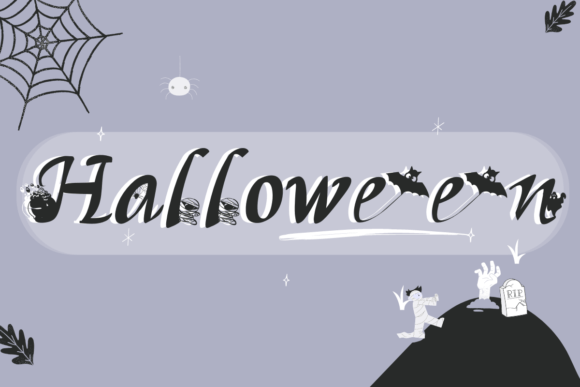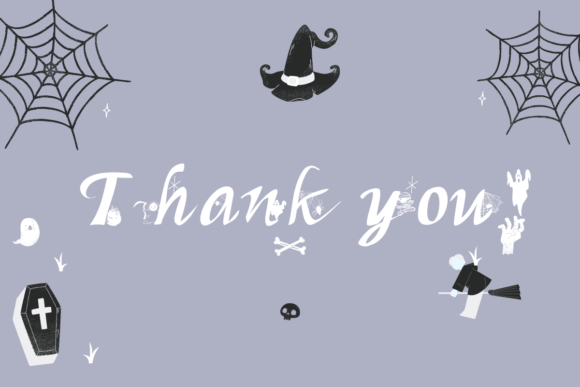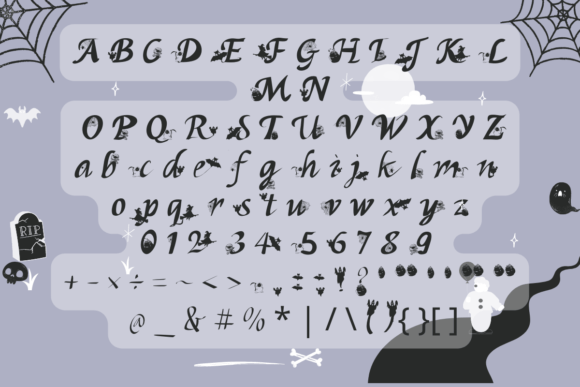
The Perfect Potion for Your Design Spells
You know that magical moment when you’re working on a design project and you’re just about to add the final touches, but something’s missing? The font, the colors, the overall vibe – it’s all just a bit… ordinary. That’s when the spark of creativity hits, and you start thinking about how to add a dash of magic to your design. For many designers, that spark comes in the form of a bold, eye-catching font that adds a touch of personality to their work.
Enter the Halloween Font, a gorgeous and bold handwritten font that’s sure to cast a spell on your audience. With its strong, confident, and dynamic feel, this font is perfect for adding a nostalgic touch to your headlines and logotype projects. Whether you’re a seasoned designer or just starting out, the Halloween Font is a valuable addition to your toolkit, guaranteed to elevate your designs and leave a lasting impression.
Halloween Font Key Features
- Font Family: The font is a custom, hand-drawn design, often referred to as “Halloween Font” or “Spooky Font”.
- Character Count: The font contains a wide range of characters, including uppercase and lowercase letters, numbers, punctuation marks, and special characters.
- Resolution: The font is designed to be scalable and resolution-independent, ensuring that it looks great at any resolution or size.
- Unique Characteristics: The font features a spooky, hand-drawn style with intricate details and textures, making it perfect for creating a Halloween-themed atmosphere.
Halloween Font Review
Overall, I think the Halloween Font is a fun, spooky addition to any design project. Here’s what I like about it:
- ✨ The unique, hand-drawn feel gives it a charming, homemade quality that’s perfect for Halloween-themed designs.
- ✨ The bold lines and playful shapes make it easy to read and understand, even in small sizes.
- ✨ The font includes a wide range of characters, including punctuation and symbols, which makes it more versatile.
- ⚠️ The font can feel a bit kitschy or over-the-top for more serious designs, so be careful not to overuse it.
- ⚠️ Some of the characters may not be as polished as others, which can be distracting in certain contexts.
Overall, I think the Halloween Font is a great choice for Halloween-themed designs, party invitations, or other seasonal projects. Just be mindful of its limitations and use it in moderation to avoid overwhelming your design. With a little creativity, this font can add a lot of personality to your work.
Tips for Getting the Most Out of Halloween Font
Use Halloween font to add a spooky or festive touch to your designs. Experiment with different font sizes, colors, and styles to create a unique look. Consider pairing the font with other Halloween-themed elements, such as jack-o-lanterns or ghosts.
Common Use Cases for Halloween Font
Halloween font is perfect for creating invitations, posters, and other promotional materials for Halloween parties or events. It can also be used to add a spooky touch to social media graphics, blog posts, or other online content.